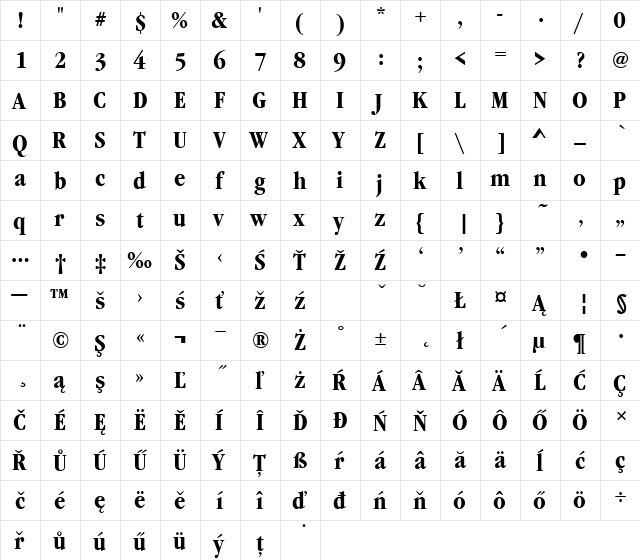
GaramItcTEECon Bold Bold
| Foundry | by URW |
Design Context for GaramItcTEECon Bold Typeface
GaramItcTEECon Bold offers clean, dependable letterforms without strong stylistic allegiance, making it a practical choice for designers who need flexibility. The heavy weight commands attention and anchors typographic hierarchies.